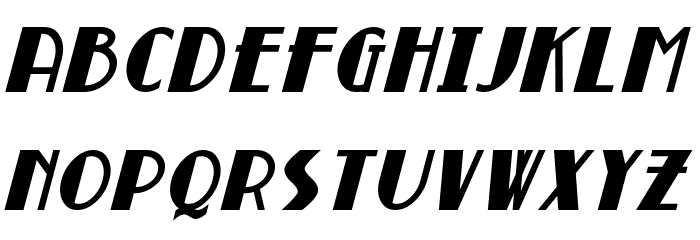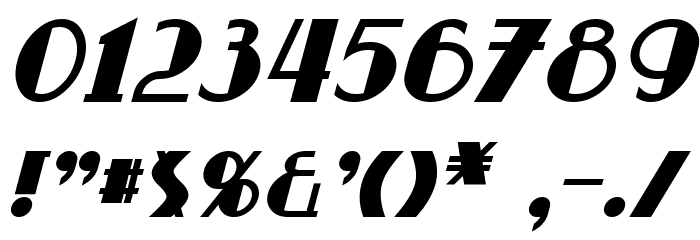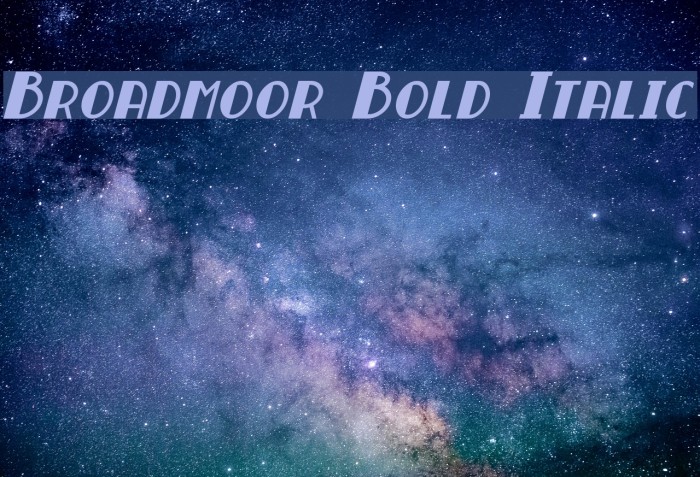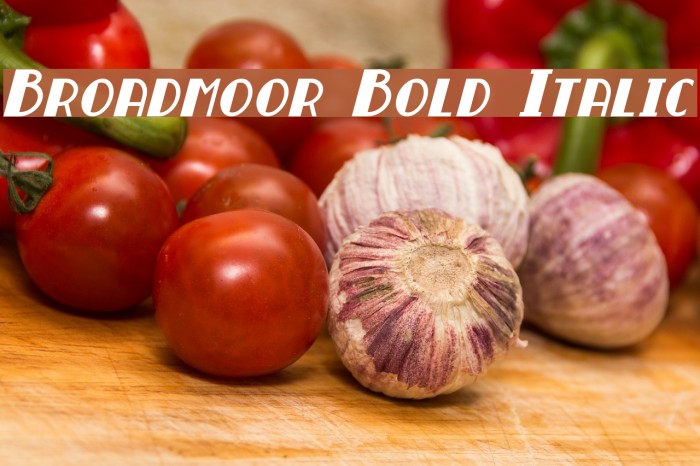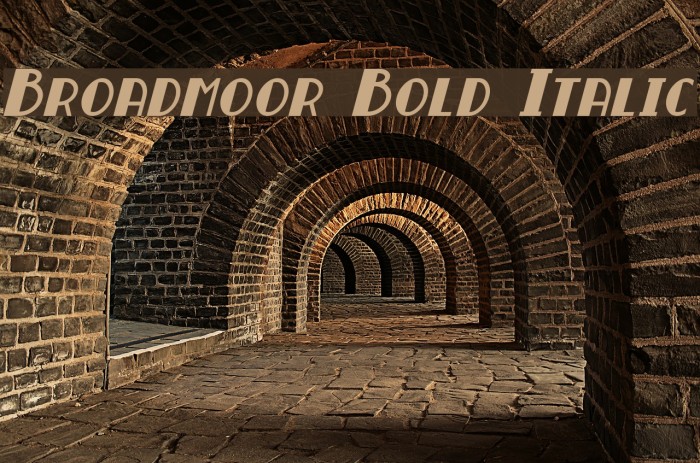
Broadmoor Bold Italic Font
This typeface features a bold and italicized style with a distinct slant, giving it a dynamic and energetic appearance. The characters are well-defined with sharp edges and a strong presence, making it suitable for attention-grabbing headlines. The uppercase and lowercase letters maintain a consistent style, with a slight variation in the curvature and angles, adding a unique flair. The numerals are bold and clear, ensuring readability. Special characters are included, maintaining the overall aesthetic of the font. The design is modern and versatile, suitable for various creative projects.
A bold, italicized typeface with a dynamic and modern style.